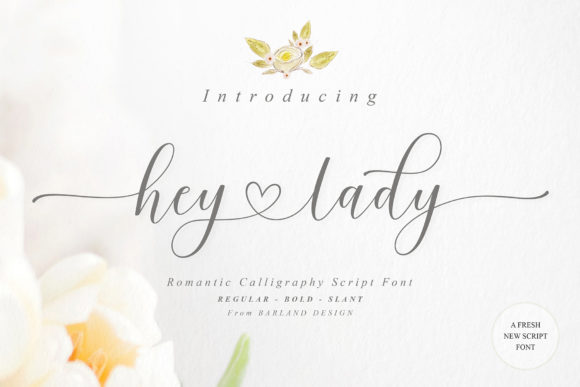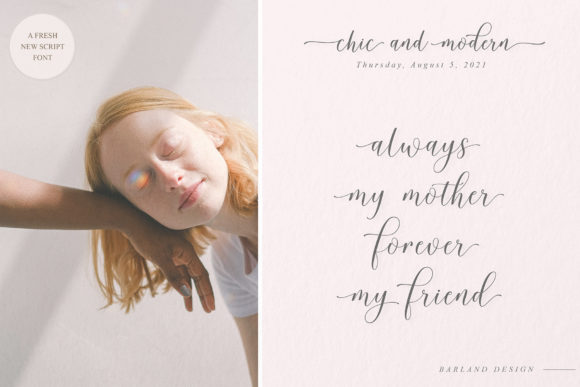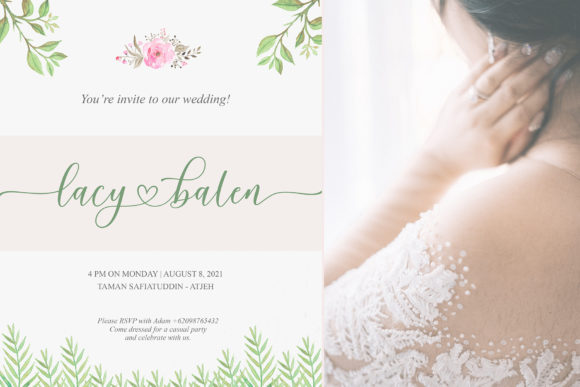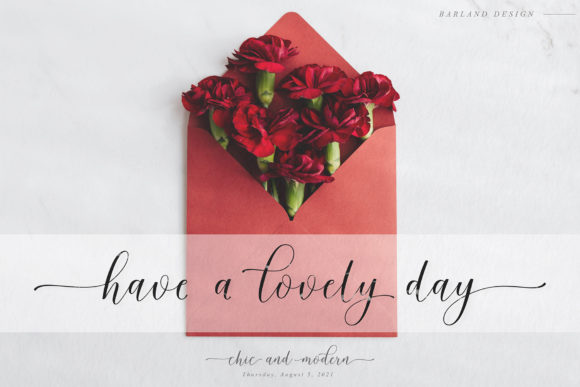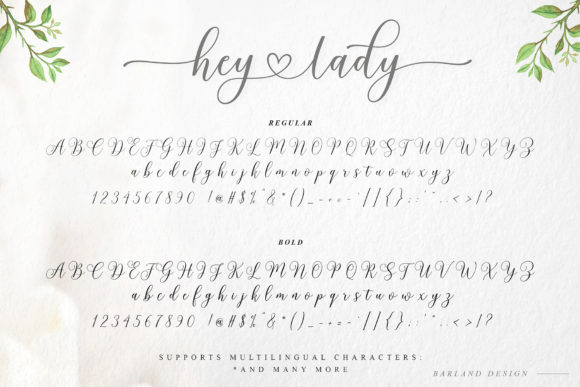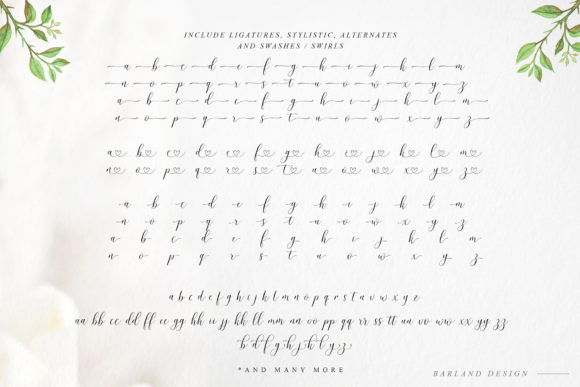
About Hey Lady Script Font
“Hey Lady Script” is a script font characterized by its free-flowing and fluid design. It has been crafted with the intention of serving a variety of purposes, such as packaging products, invitation cards, flyers, mockups, event posters, and any project that demands a touch of high-quality aesthetics. An added advantage is that this font is PUA encoded, allowing easy access to all its glyphs and swashes.
The font’s allure lies in its ability to convey a sense of effortless elegance. Its flowing script adds a touch of authenticity and charm to the projects it’s applied to, enhancing their visual appeal.
“Hey Lady Script” is versatile across a multitude of design scenarios. From formal invitations to eye-catching event posters, its adaptability makes it an excellent choice for various creative needs.
The PUA encoding of this font further enhances its appeal, providing designers with the convenience to explore a wide array of design variations and decorative elements, thereby expanding its creative potential.
In summary, “Hey Lady Script” embodies the spirit of free-flowing elegance. Its versatility, combined with the convenience of PUA encoding, makes it a valuable tool for designers seeking to infuse their projects with sophistication and style.